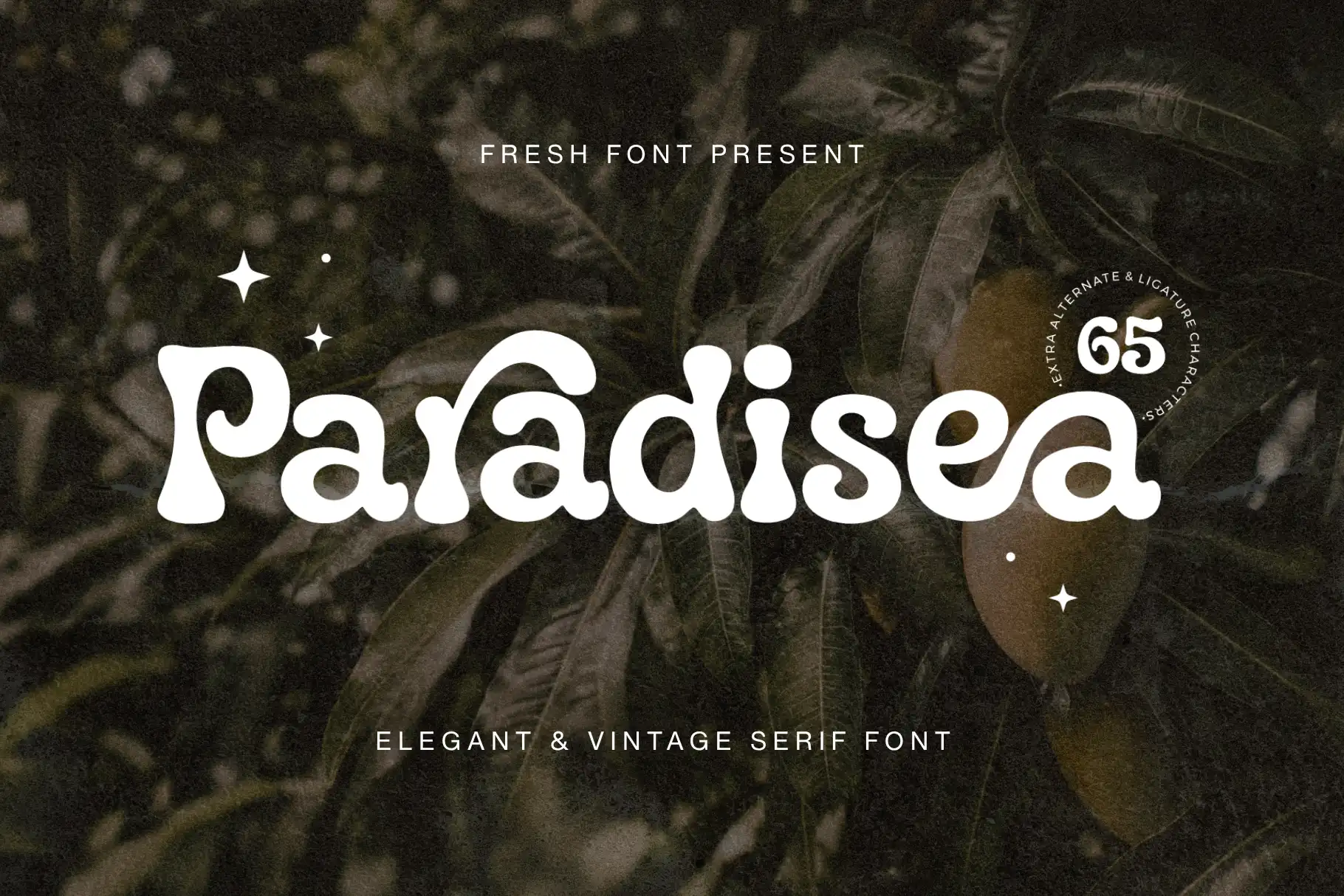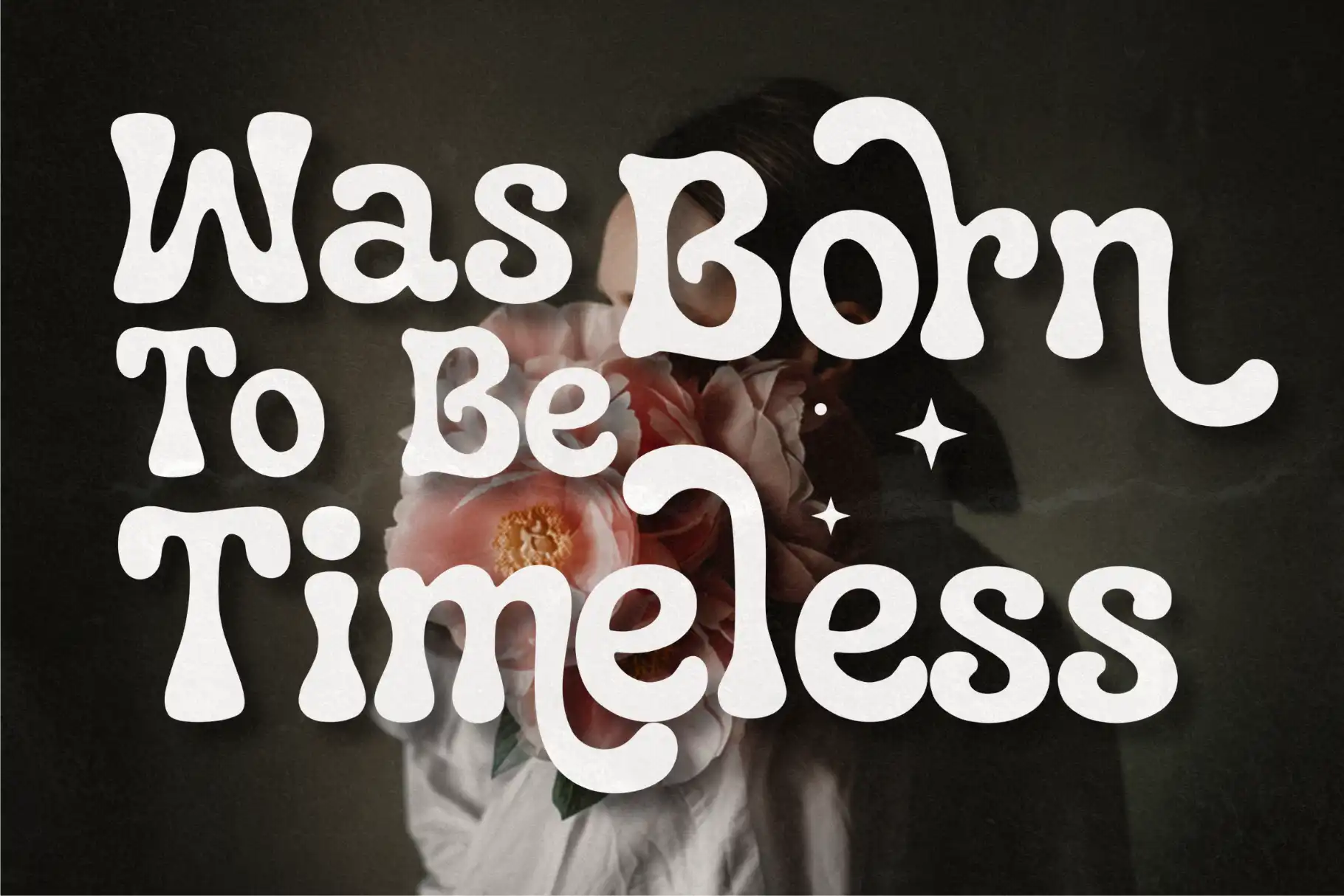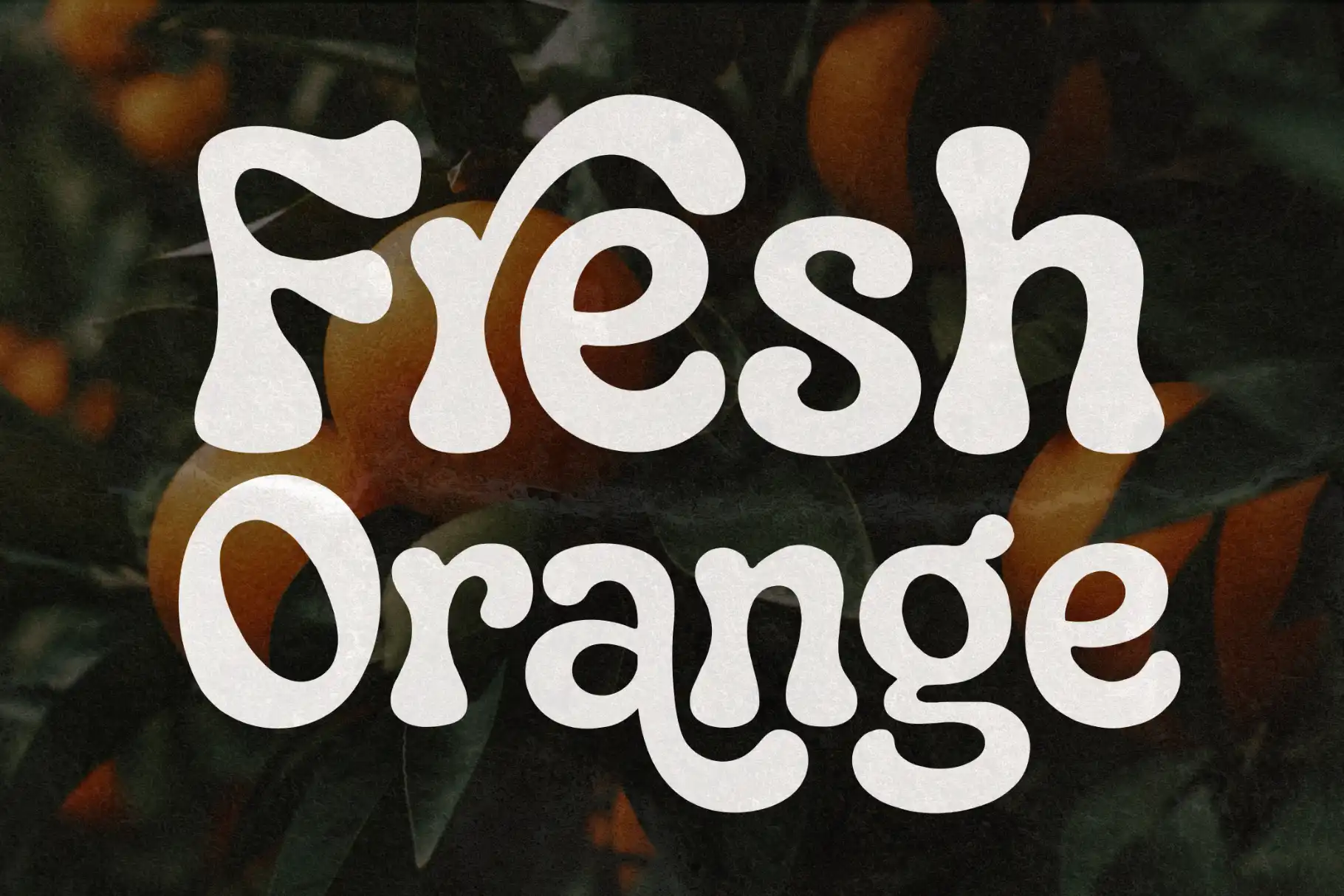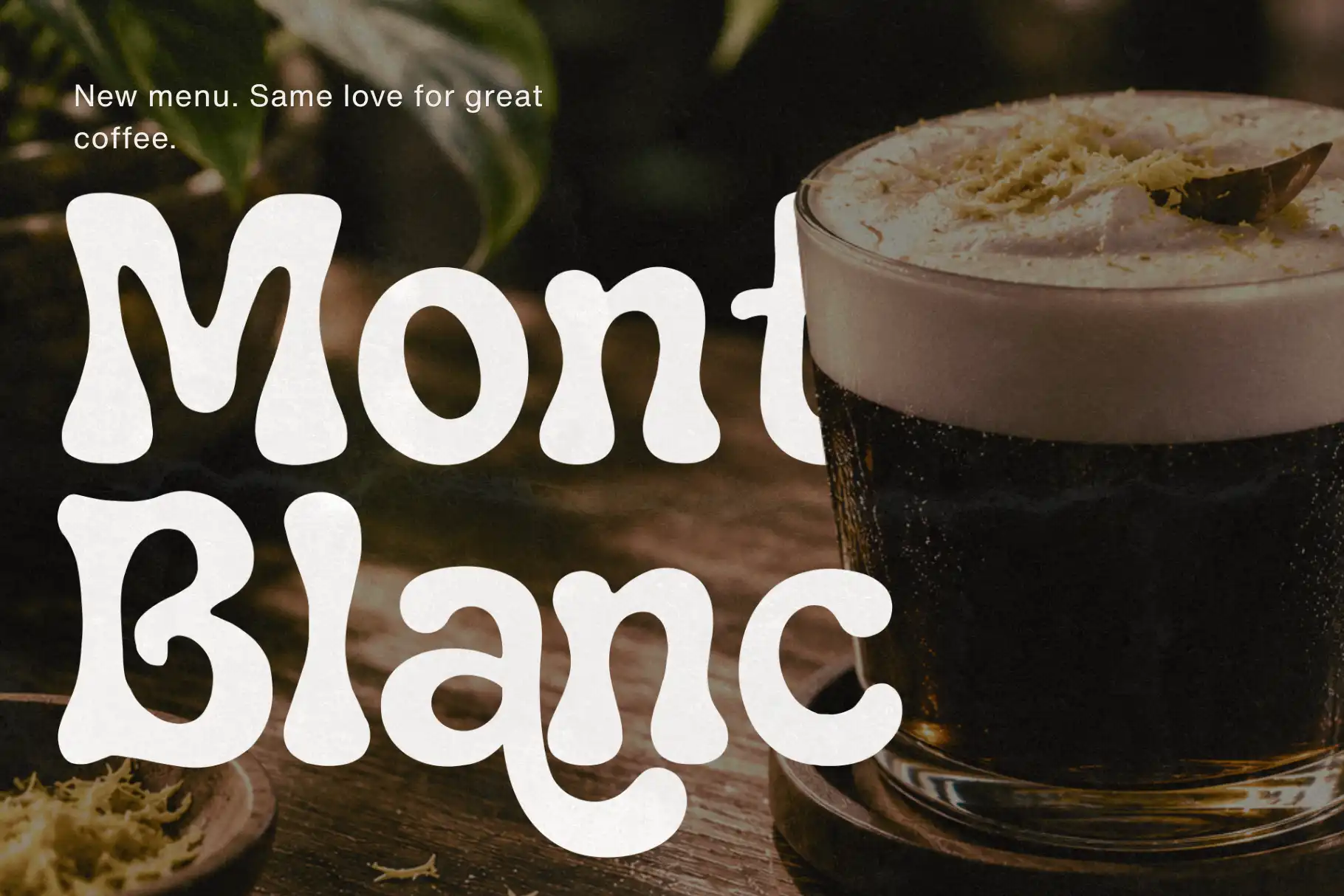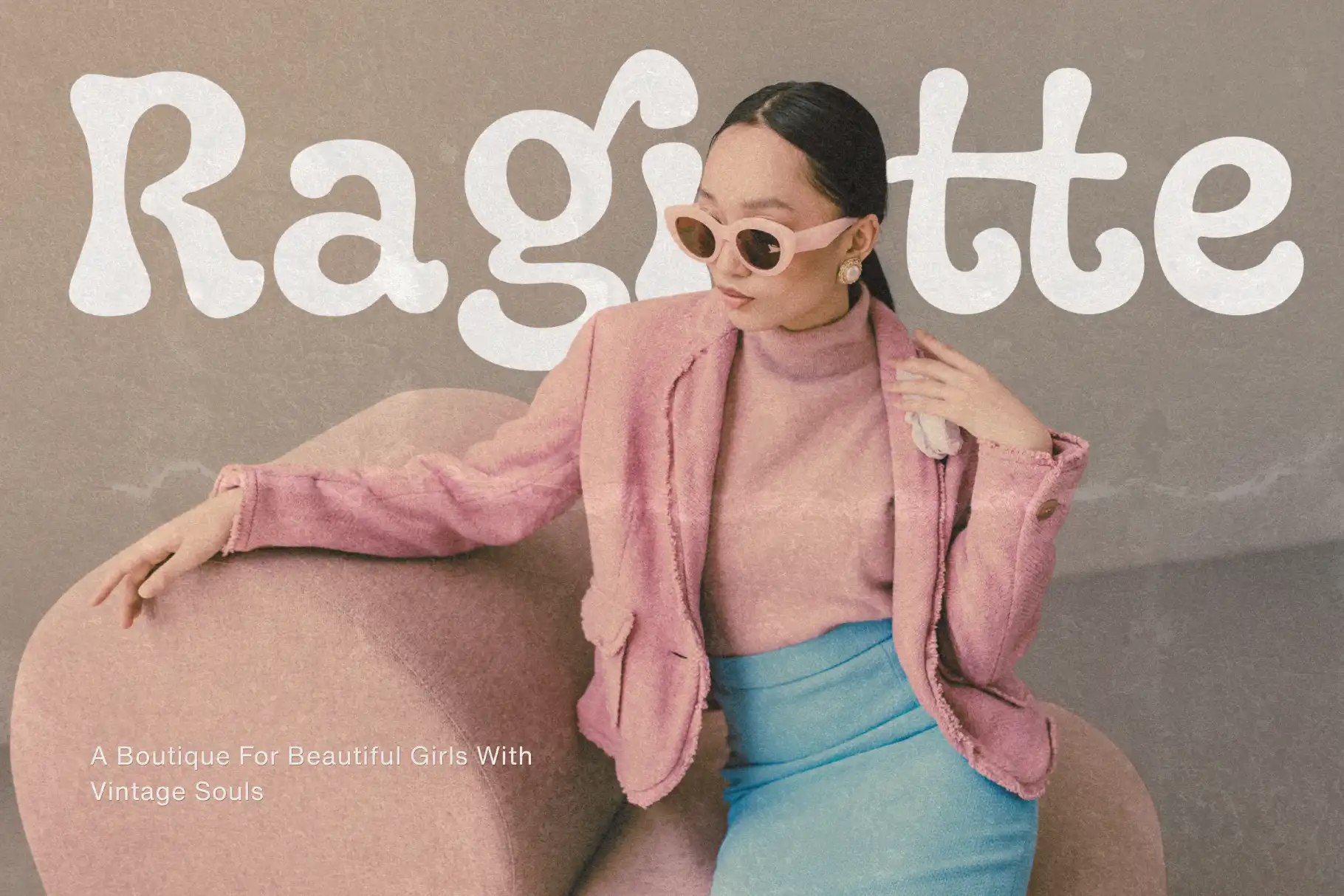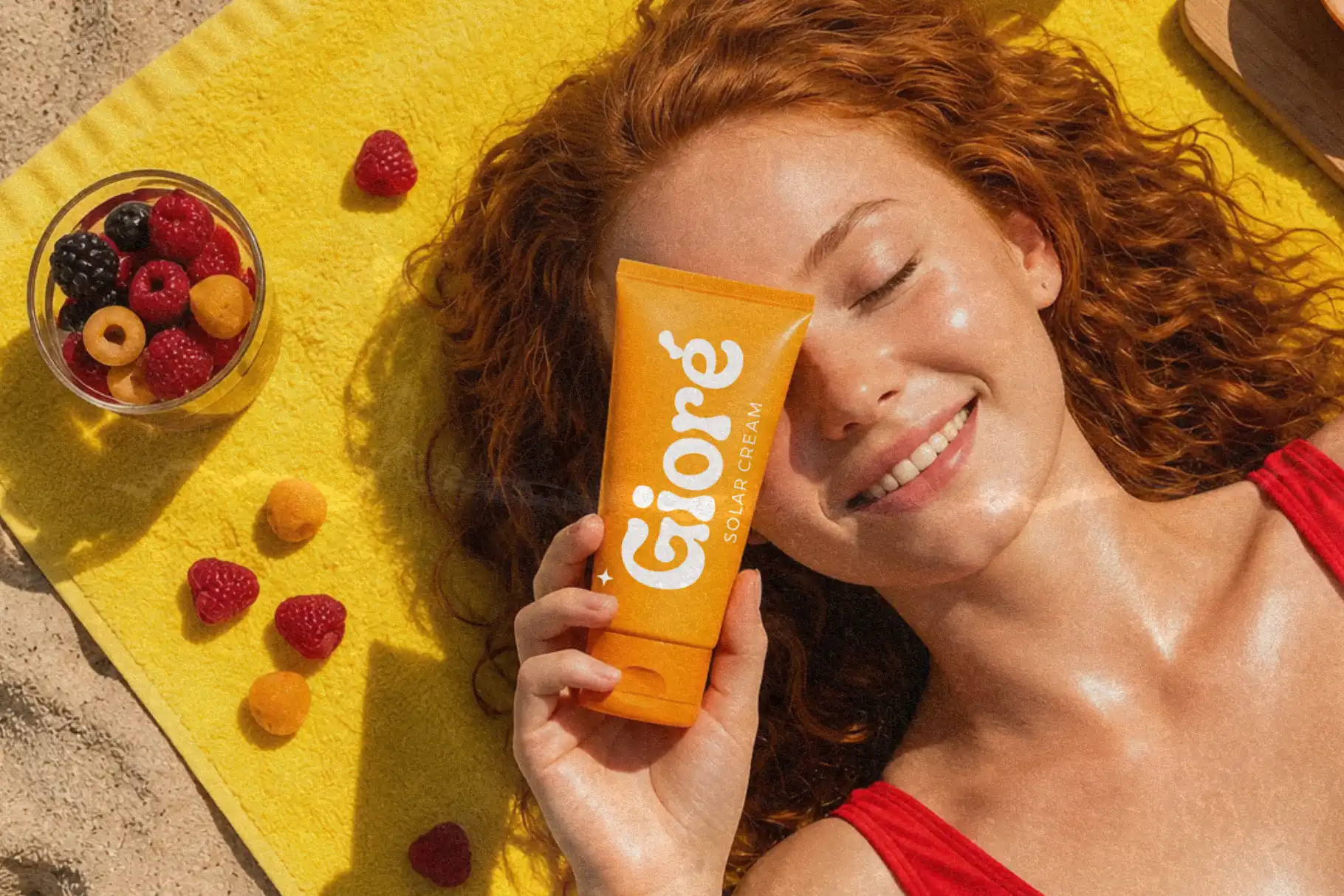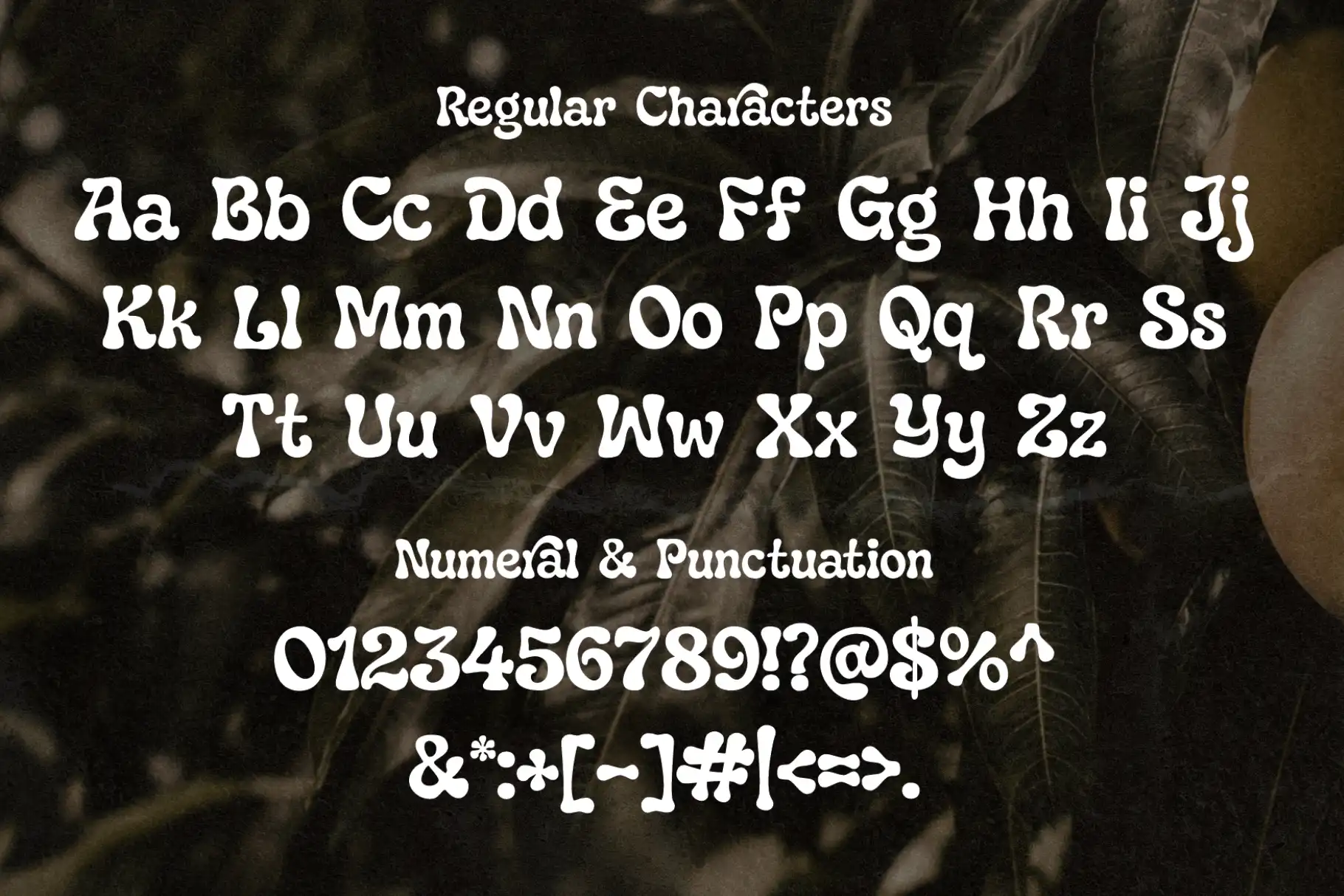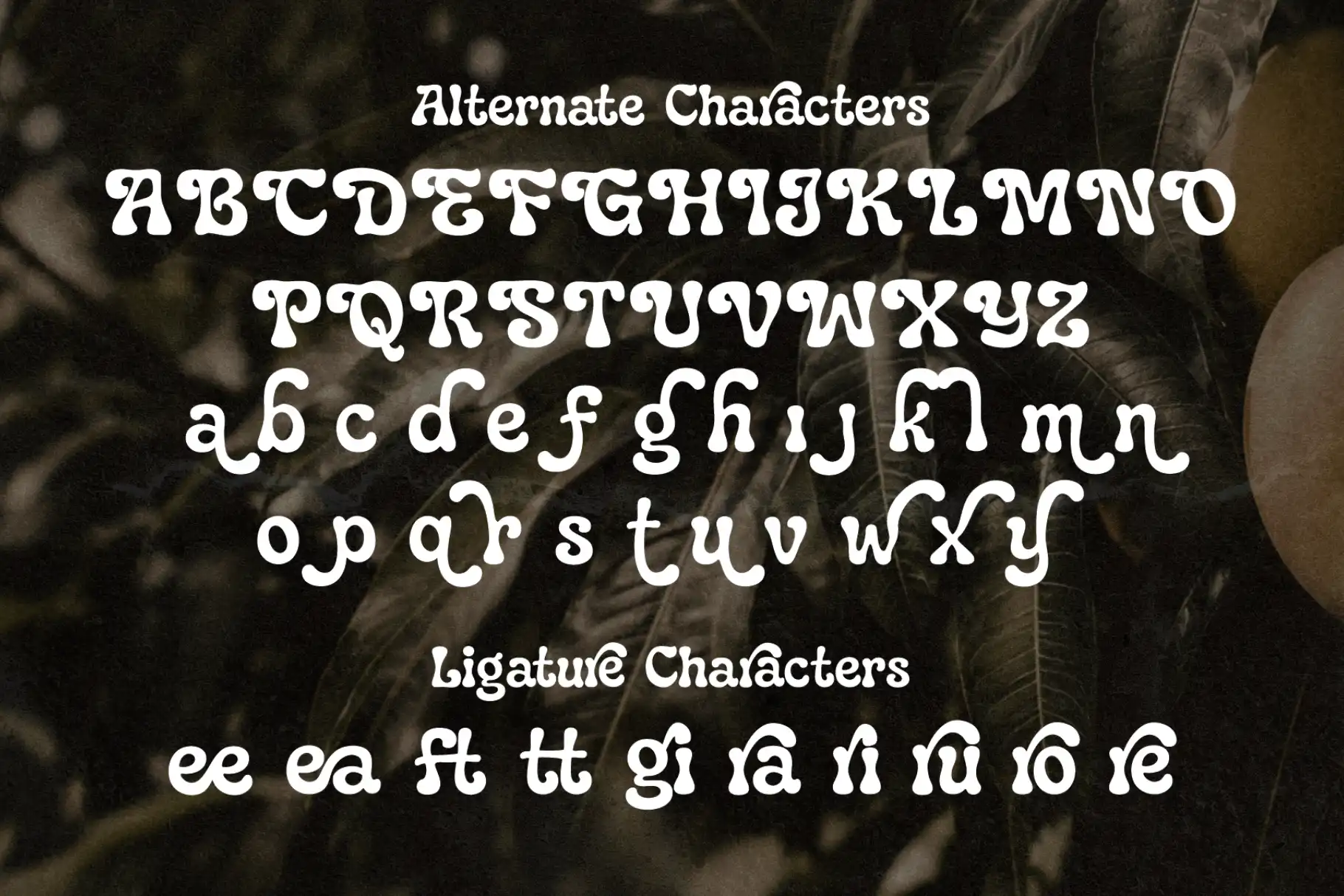
Paradisea Vintage Serif Font for Timeless Creative Work
Paradisea Vintage Serif Font brings classic character and a refined vintage mood to contemporary design projects. Created for designers who want typography with a memorable personality, Paradisea gives headlines, logos, packaging, and editorial compositions a distinctive sense of history without making the result feel outdated.
Its serif structure makes it an excellent choice when your design needs to communicate craftsmanship, confidence, heritage, or understated elegance. The included uppercase and lowercase characters give you the flexibility to create bold titles, balanced brand names, stylish subheadings, and more expressive typographic arrangements.
Paradisea also includes alternate characters and ligatures, helping you introduce more variety into selected words, headlines, and logo concepts. These additional character options allow designers to explore different visual rhythms while maintaining a consistent vintage serif identity.
Whether you are developing a boutique brand, designing product packaging, creating promotional artwork, or preparing a polished editorial layout, Paradisea offers a practical foundation for typography that deserves attention.
Paradisea combines vintage serif influence with an editorial personality. Its overall direction feels classic, expressive, and carefully considered, making it especially useful for projects that need more character than a neutral typeface can provide.
The font can support nostalgic visual identities, premium product presentations, heritage-inspired branding, and modern layouts that use vintage typography as a focal point. It works particularly well when displayed at larger sizes, where the personality of the letterforms, alternates, and ligatures can become part of the design itself.
Use Paradisea to create an atmosphere that feels established and intentional. It can help a new brand appear more considered, give packaging a crafted quality, or add visual depth to a poster, cover, or social media campaign.
The font’s combination of uppercase and lowercase characters also makes it easier to create hierarchy. Uppercase lettering can establish a strong brand name or title, while lowercase text can introduce a softer and more approachable contrast.
Best Use Cases for Paradisea Vintage Serif Font
Paradisea is designed for creative projects that benefit from a recognizable serif voice. It can become the central typographic element of a design or work alongside a cleaner supporting font.
Consider using Paradisea for:
Brand identities and logo concepts
Boutique and lifestyle branding
Product packaging and label design
Editorial headlines and magazine layouts
Fashion campaigns and lookbooks
Book covers and publication titles
Café, restaurant, or hospitality branding
Posters and promotional graphics
Social media campaigns
Website headings and featured text
Greeting cards and printed stationery
Apparel graphics and merchandise
Creative portfolio presentations
Quote artwork and printable wall designs
Digital products and branded templates
Paradisea is particularly effective when a short word, brand name, or headline needs to become the visual centerpiece. Its alternate characters and ligatures can help designers refine important text and create a more customized result.
Key Features
Uppercase characters
Lowercase characters
Numbers
Punctuation
Multilingual support
Alternate characters
Ligatures
Vintage serif style
Suitable for print and digital design workflows
Three provided font file formats
Each feature has a practical role in the design process. Uppercase and lowercase letters provide flexibility for different typographic hierarchies, while numbers and punctuation support more complete compositions. Multilingual support helps accommodate a broader range of written content, and the included alternates and ligatures provide extra creative options for key words and display typography.
Designers need fonts that offer personality without making the creative process unnecessarily complicated. Paradisea provides a clear vintage serif direction while remaining flexible enough for a variety of branding, editorial, packaging, and promotional projects.
Its visual personality can help establish a strong first impression. Instead of relying on decorative elements alone, designers can use Paradisea as the primary feature of a layout. A carefully arranged wordmark, product name, title, or campaign headline can carry the design with confidence.